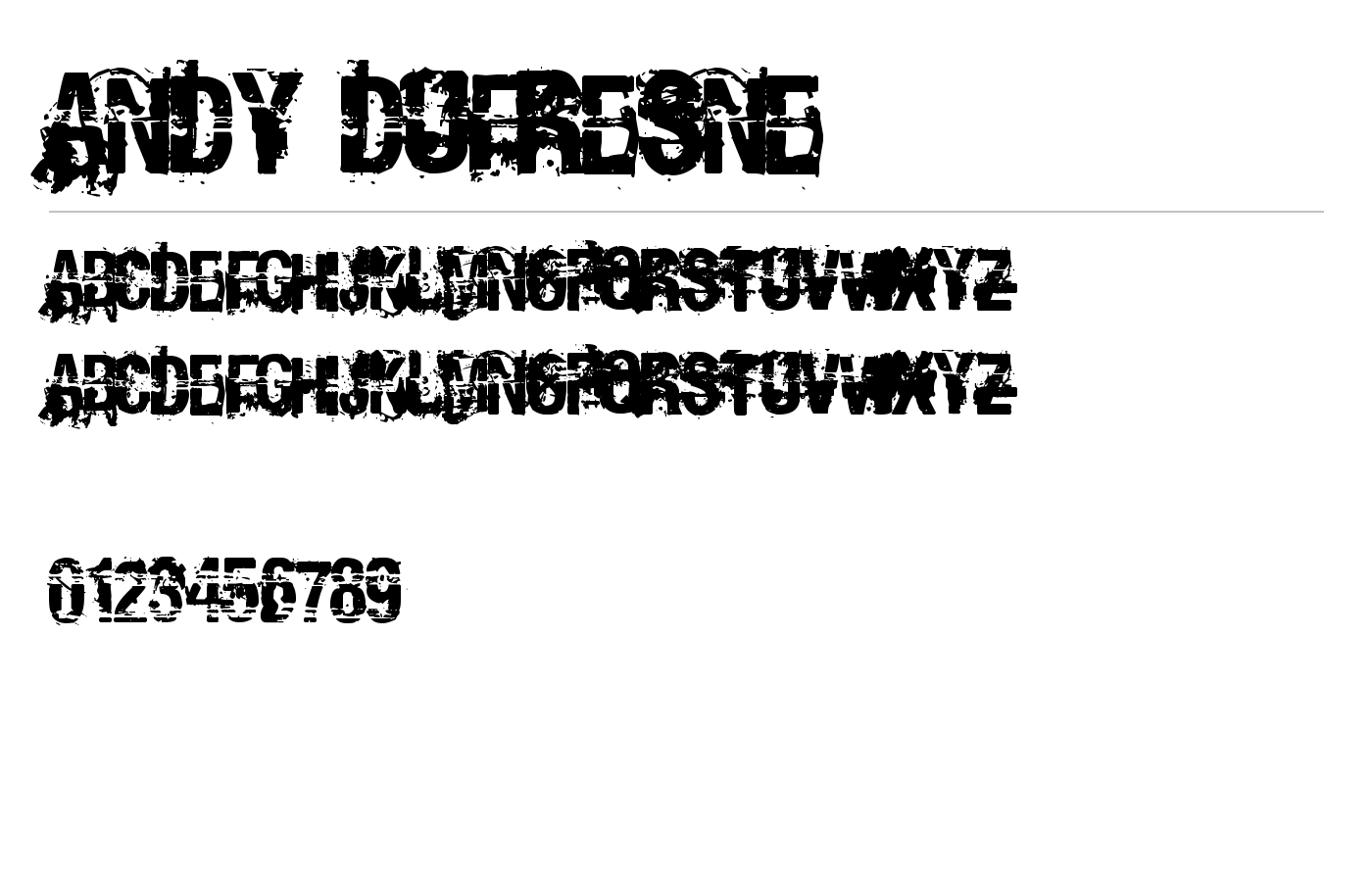
The Andy Dufresne font is a bold, distressed sans serif typeface with a gritty, textured appearance that gives it a raw and edgy feel. Its heavy weight and condensed width, combined with irregular, worn-out edges and overlapping internal marks, make it perfect for creating a strong impact in posters, album covers, or any design seeking a rebellious, urban vibe. This font works best in bold headlines or graphic designs where a rugged, distressed aesthetic is desired to convey toughness or vintage street style.
Andy Dufresne Font
About Andy Dufresne Font